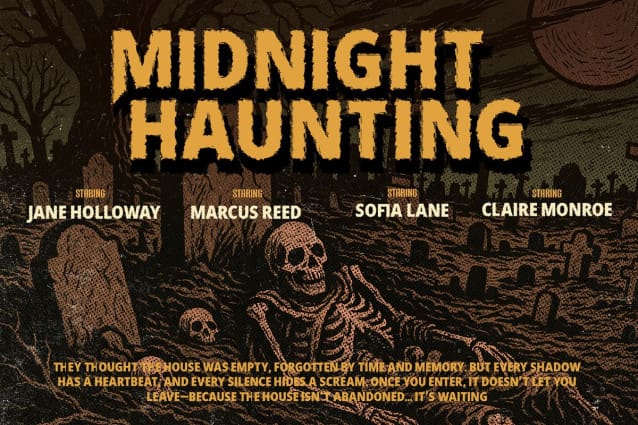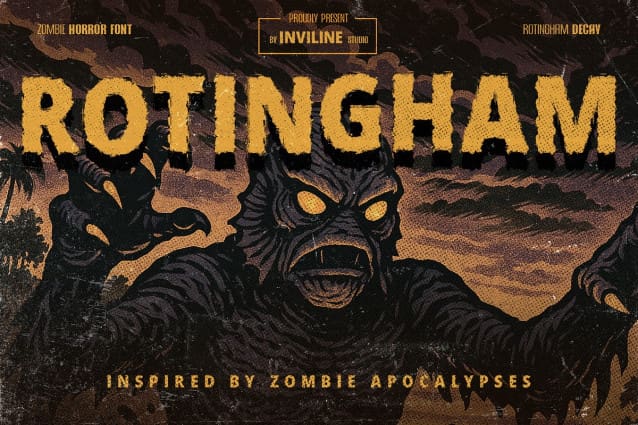
Rottingham Decay Font
Rottingham Decay Font is a terrifying display font inspired by the decaying world of zombie apocalypses. With its raw, crumbling texture and distressed edges, Rotingham captures the dread and chaos of undead horror—perfect for posters, games, movies, or anything that needs a chilling impact.
Crafted with jagged imperfections and gritty detail, this font adds instant fear to any visual. Whether you’re designing Halloween merch, retro horror comics, or survival-themed titles, Rottingham sets the perfect undead tone.
The name “Rotingham” echoes the word “rotting,” conjuring images of decomposition and doom. It’s grotesque, grungy, and unashamedly creepy.